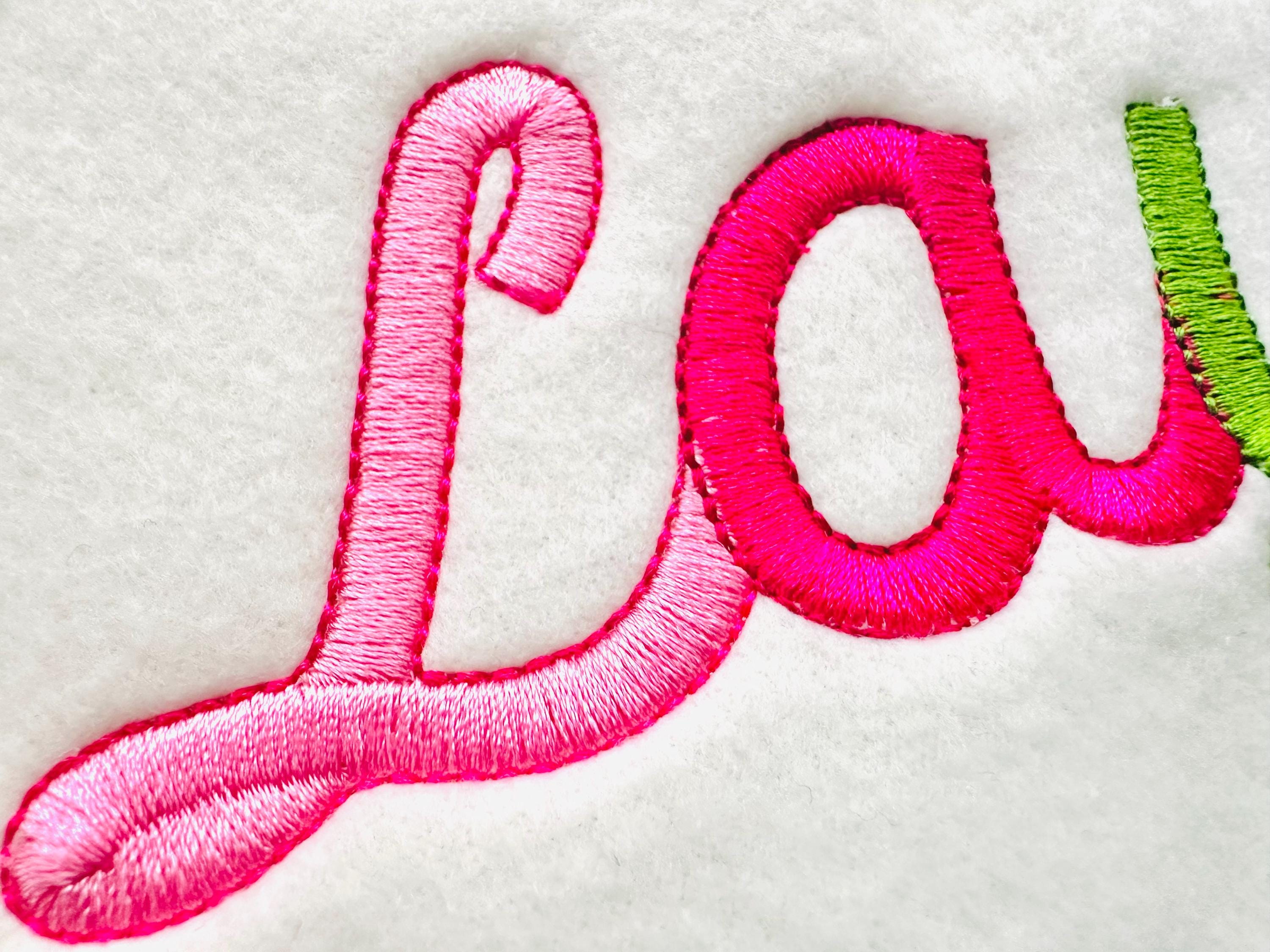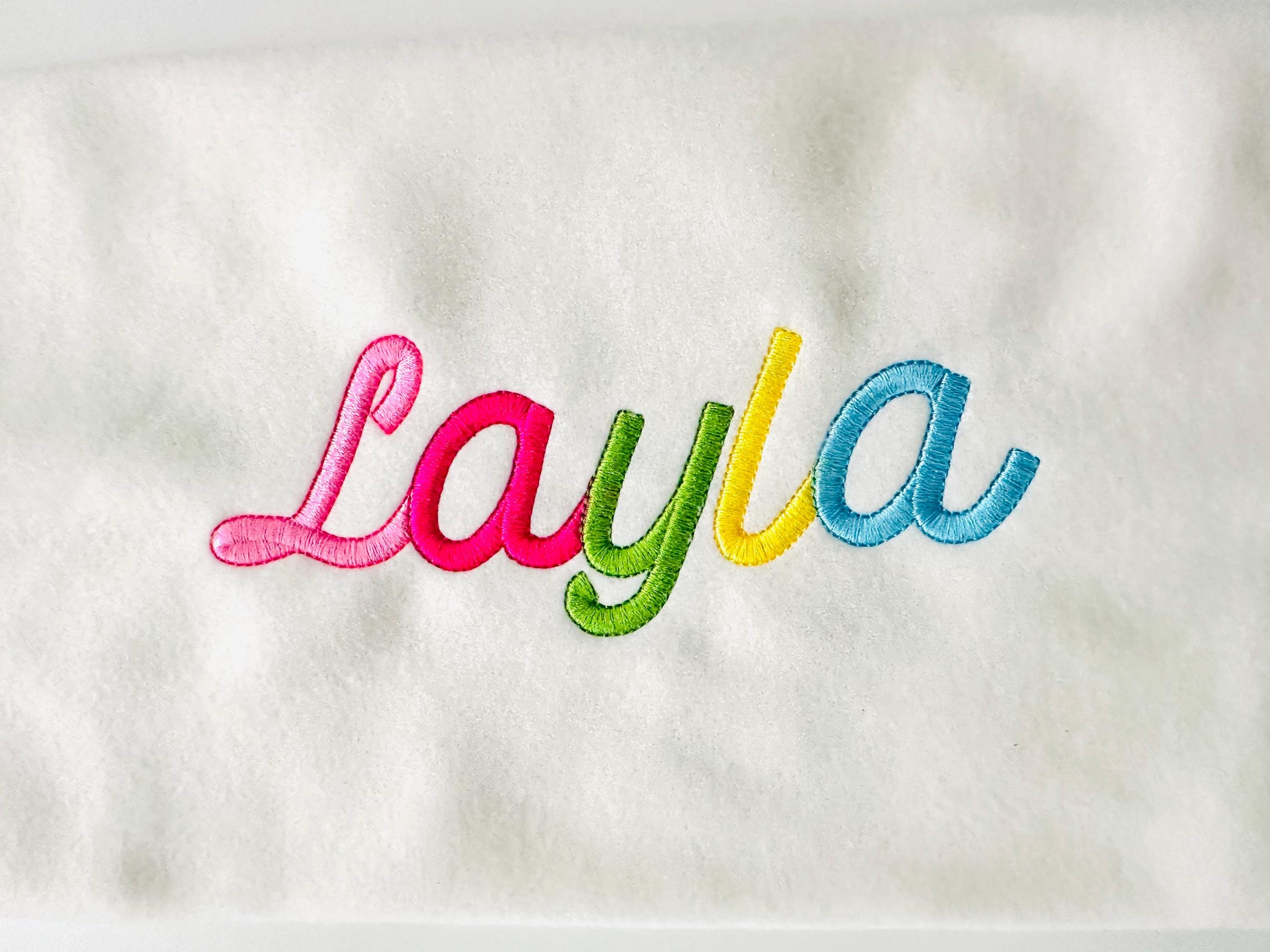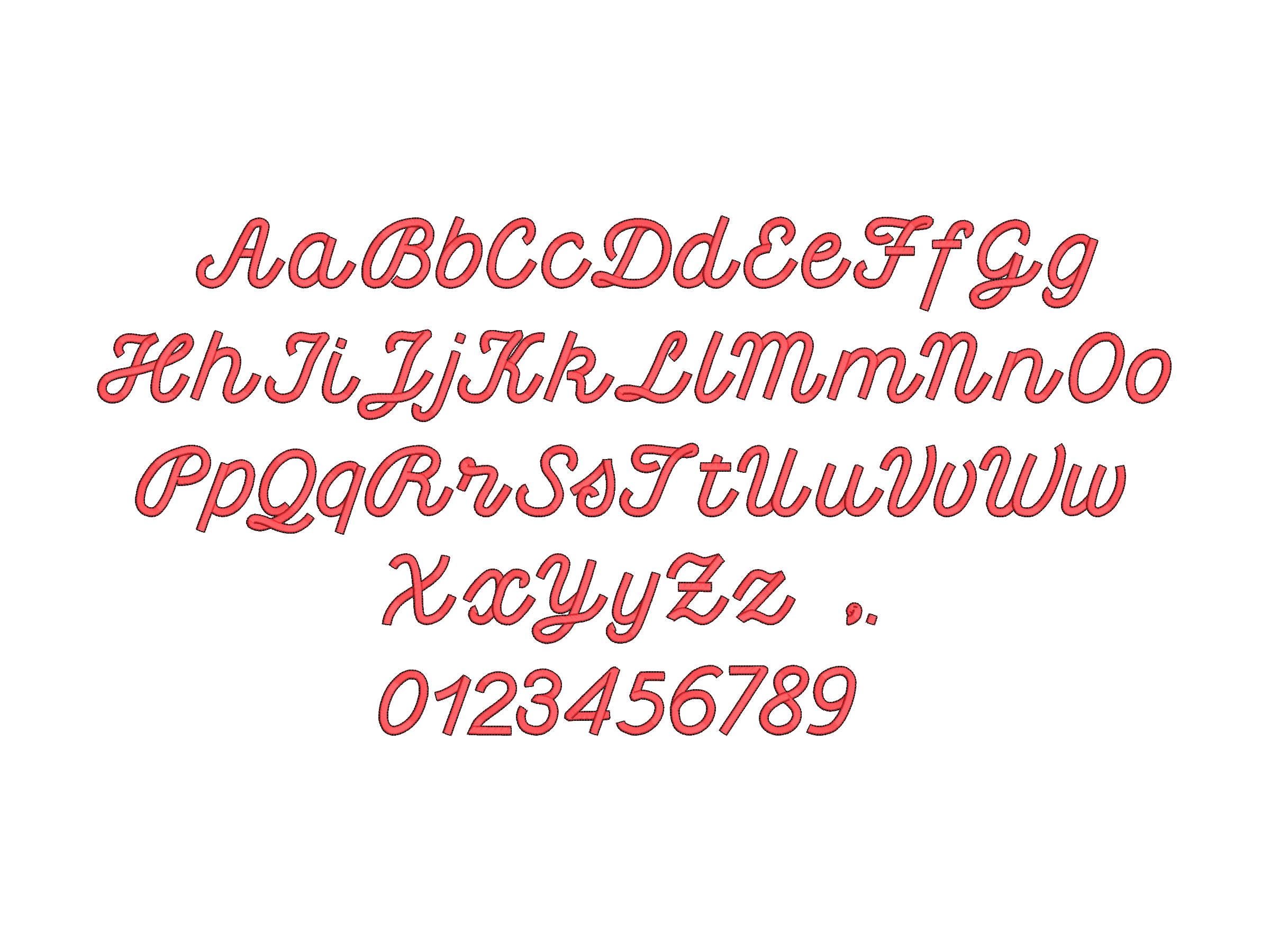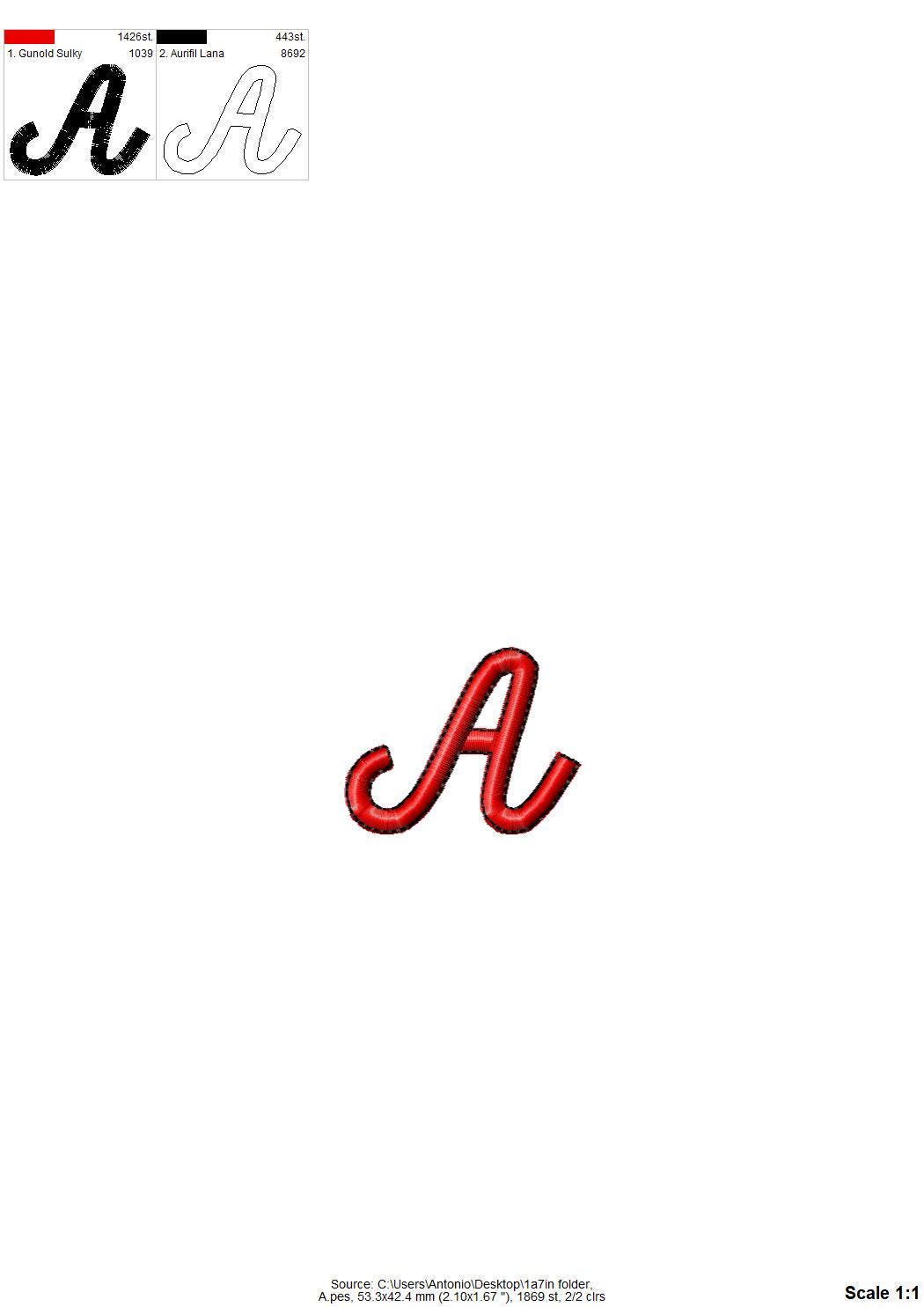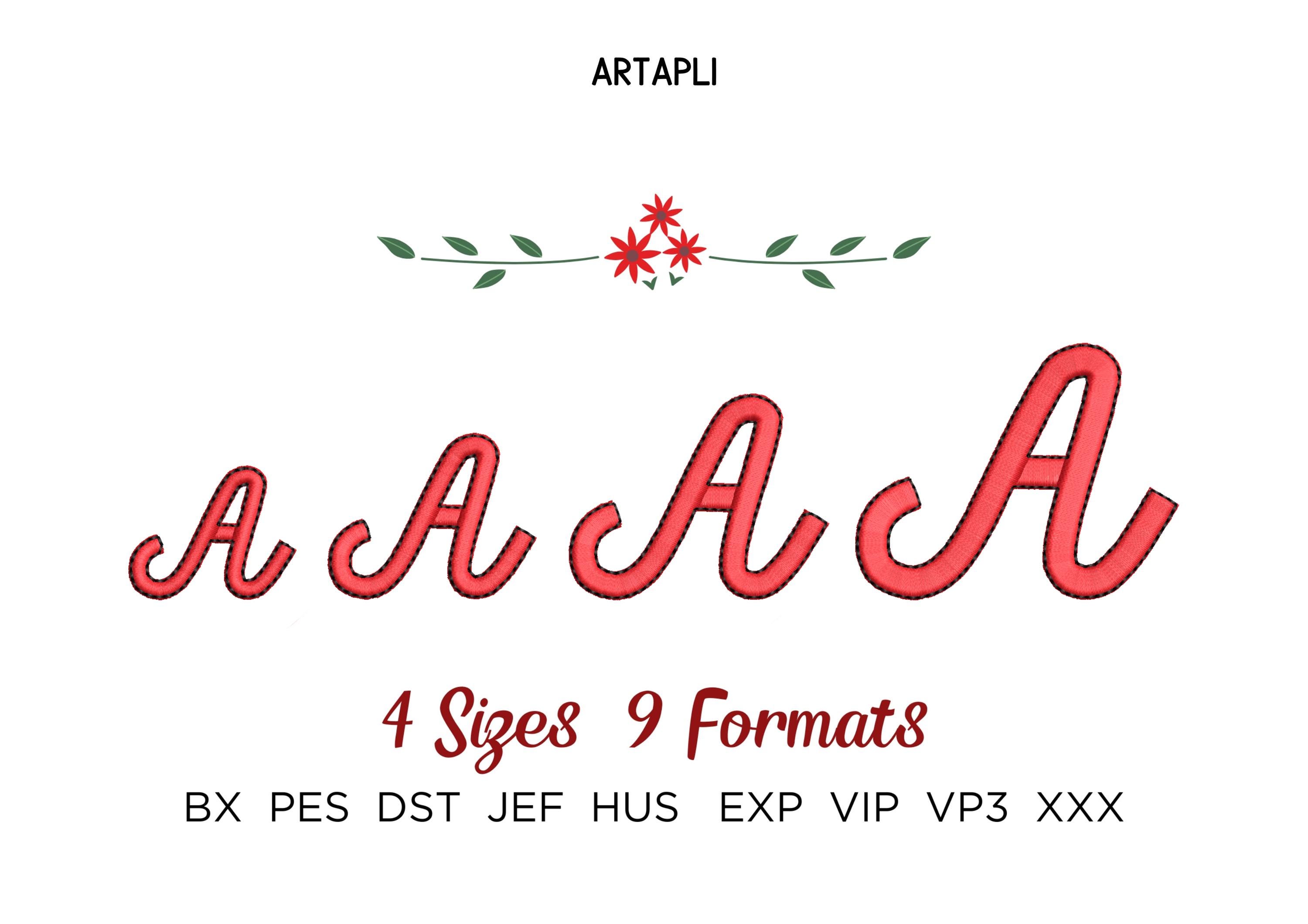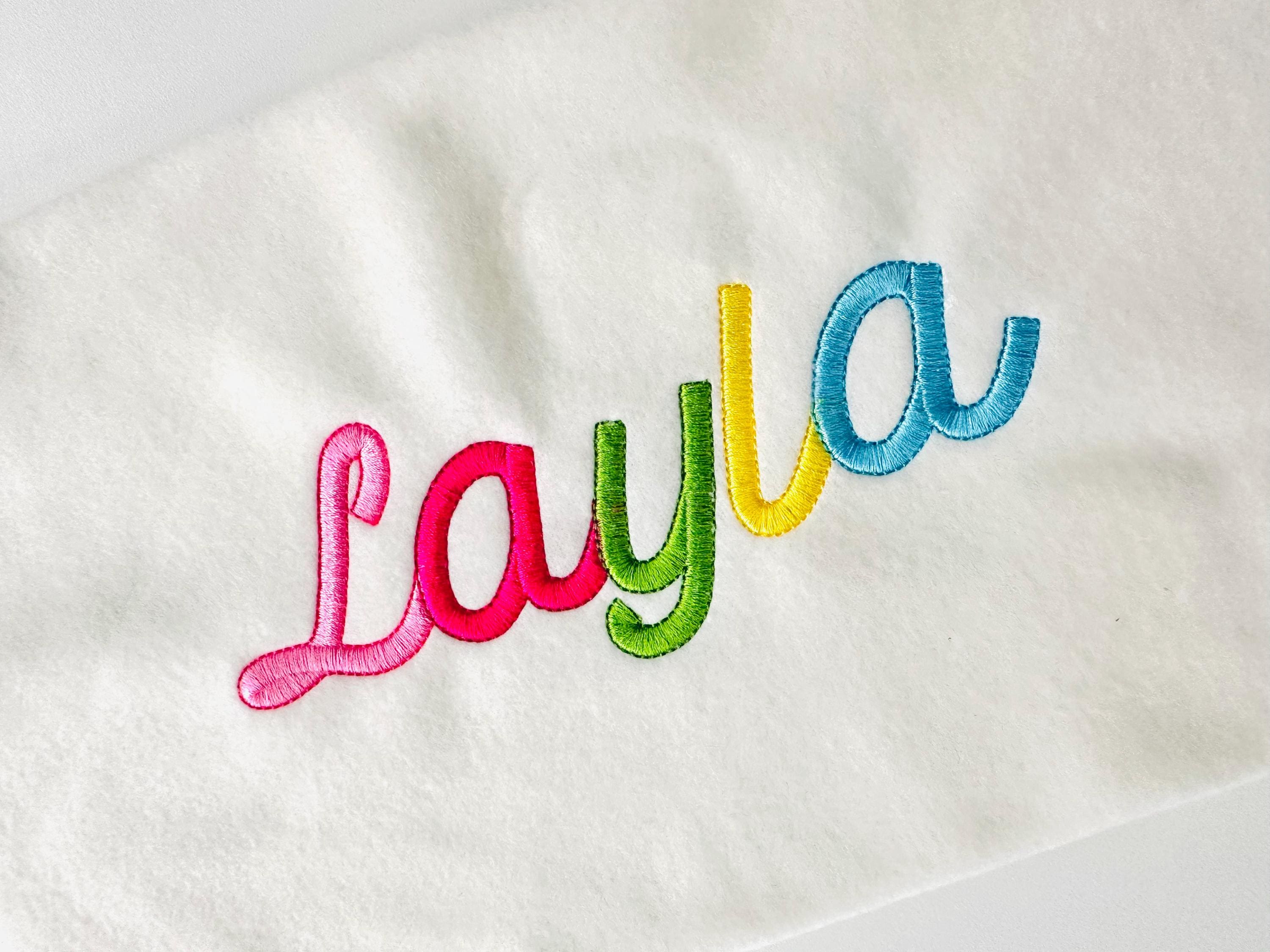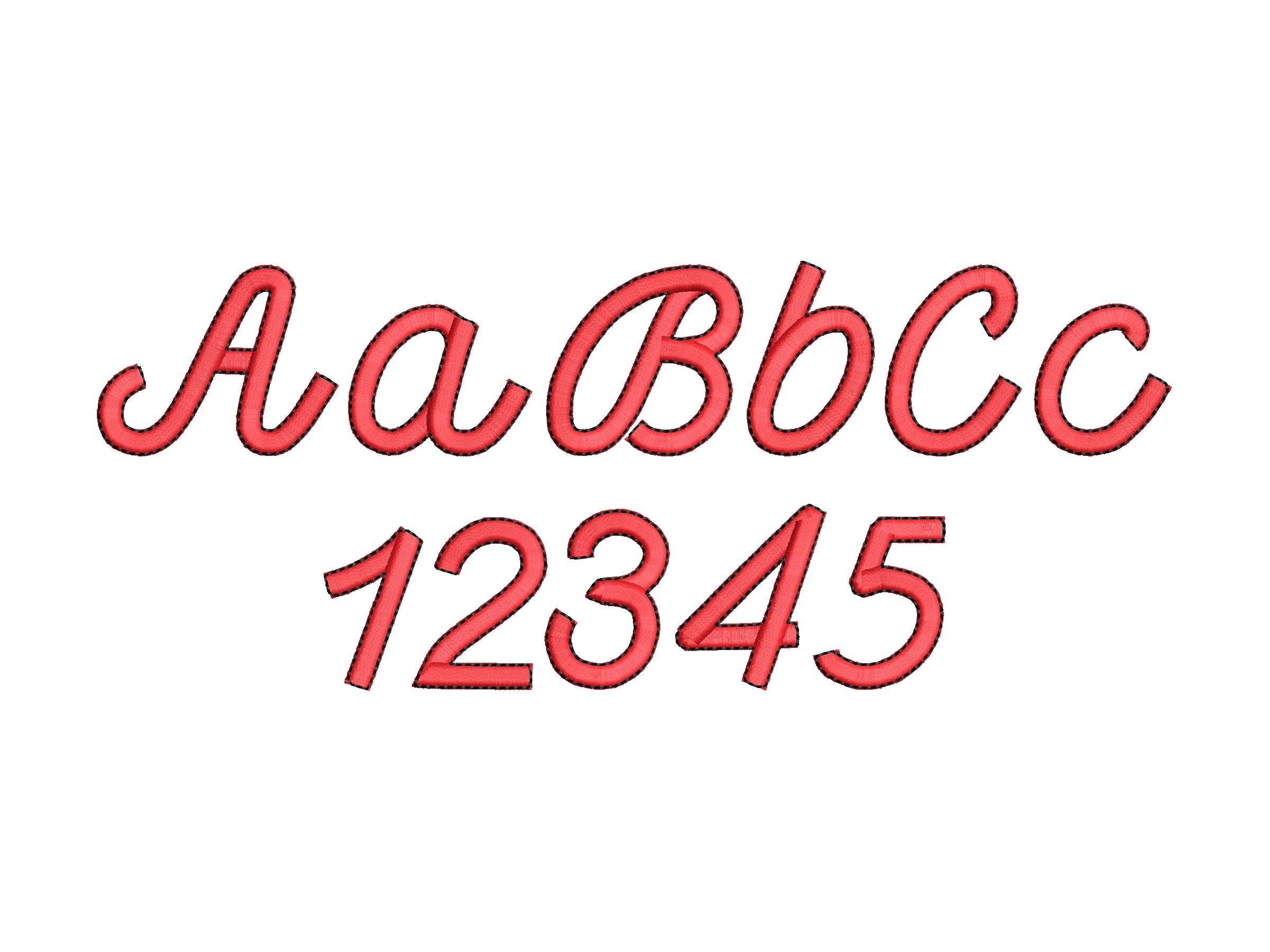
Satin stitch FONT with bean outline cursive script handwritten Font monogram alphabet machine embroidery designs sizes 1 up to 2.1 inch, BX
Satin stitch font has a bean stitch outline.
Entire alphabet consists of uppercase and lowercase letters A-Z, numbers 0-9, comma and dot.